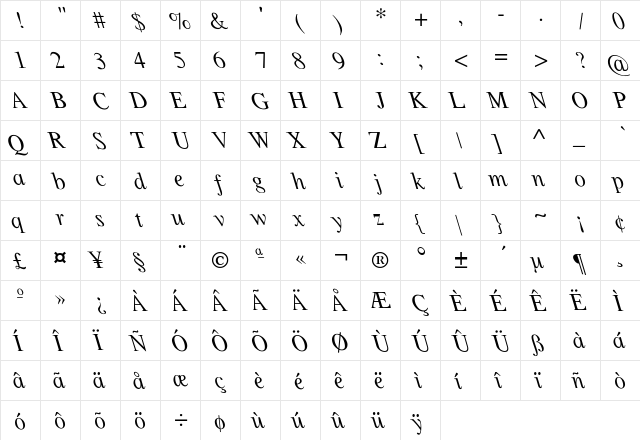
Dabbington-Italic Regular
Dabbington-Italic is a composed and adaptable typeface that performs quietly and consistently across a wide range of design contexts. The dynamic lean of this cut emphasises speed and emphasis in any layout.
Pro Tip: Use Dabbington-Italic for emphasis, pull quotes, and subheadings where its slanted energy can add rhythm to the layout.